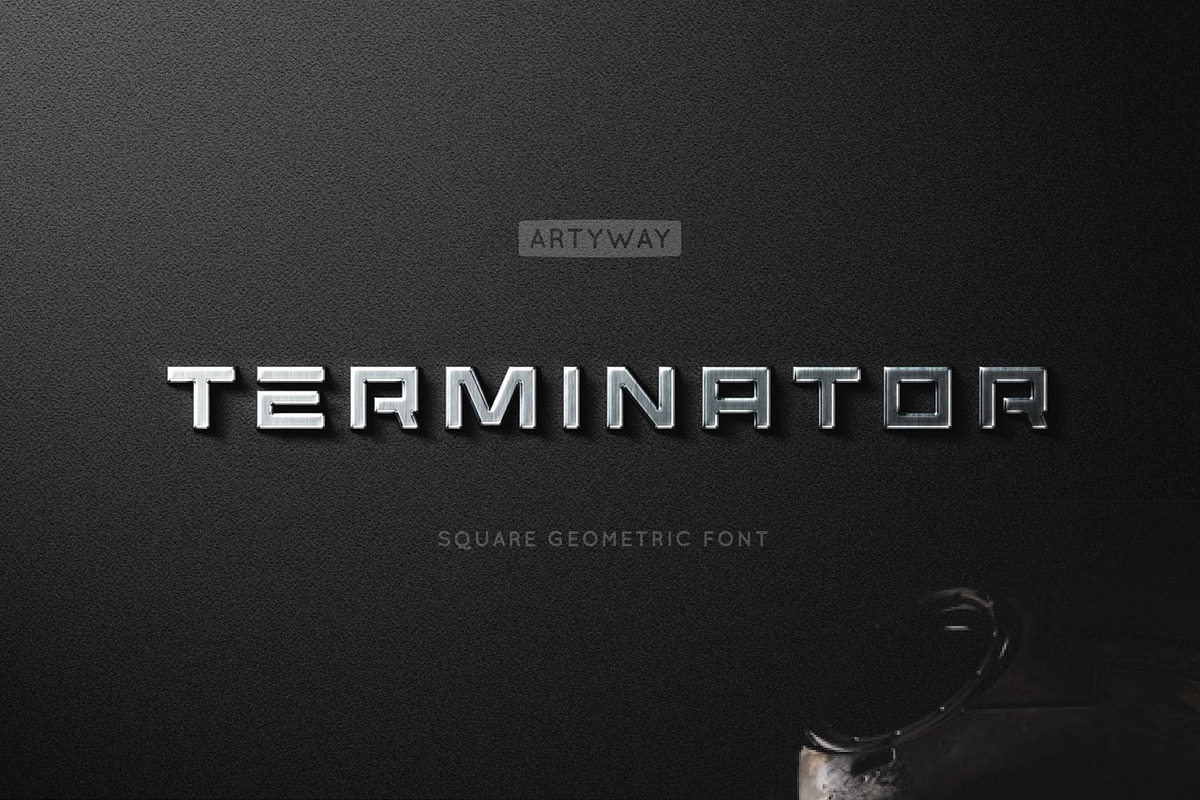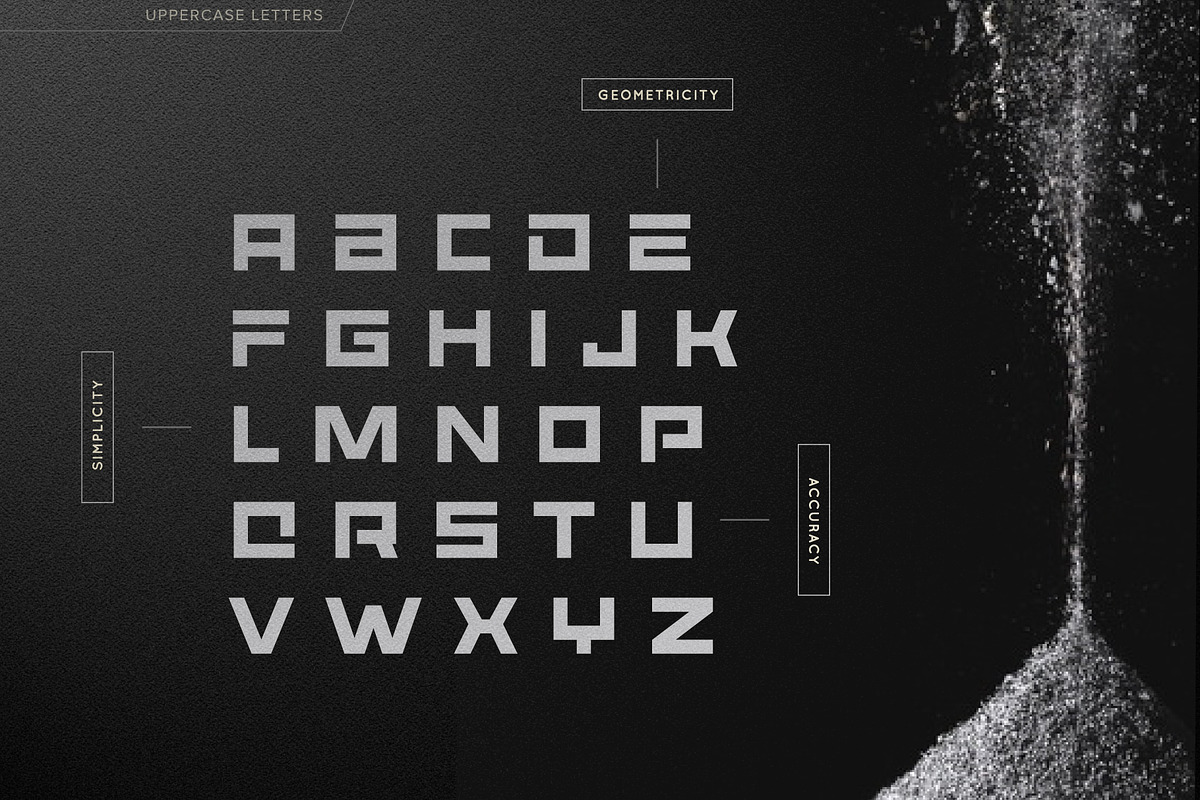
Simple Geometric Font
I suggest you to pay attention to the "Terminator" font.
Strict geometry gives a bold and confident look. Ideal for fresh technological solutions.
Uppercase english letters
Why Simple Geometric Font is worth a look
Simple Geometric Font by artyway fits naturally into Branding, posters, packaging, typography.